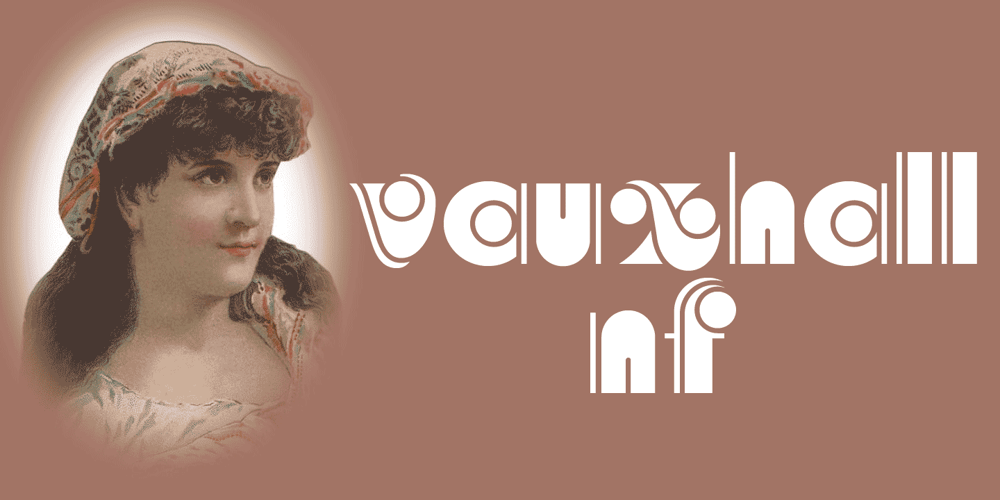
Vauxhall NF Font Family was designed by Nick Curtis and published by Nick’s Fonts. Vauxhall NF contains 1 styles and family package options. Get your groove on with this trippy little gem, based on a Fotostar face called Angelica. Not for the faint of heart. Both versions support the Latin 1252, Central European 1250, Turkish 1254 and Baltic 1257 codepages